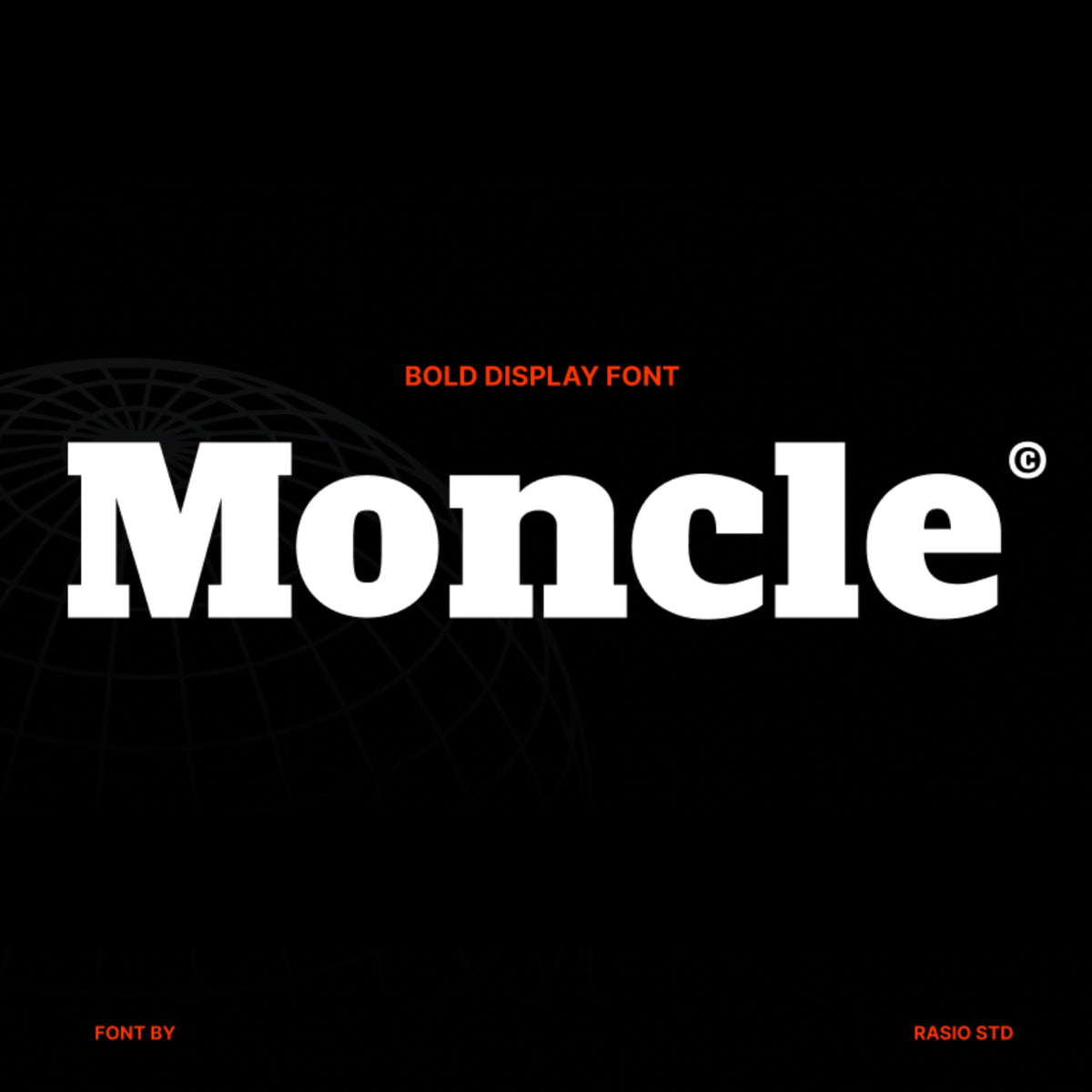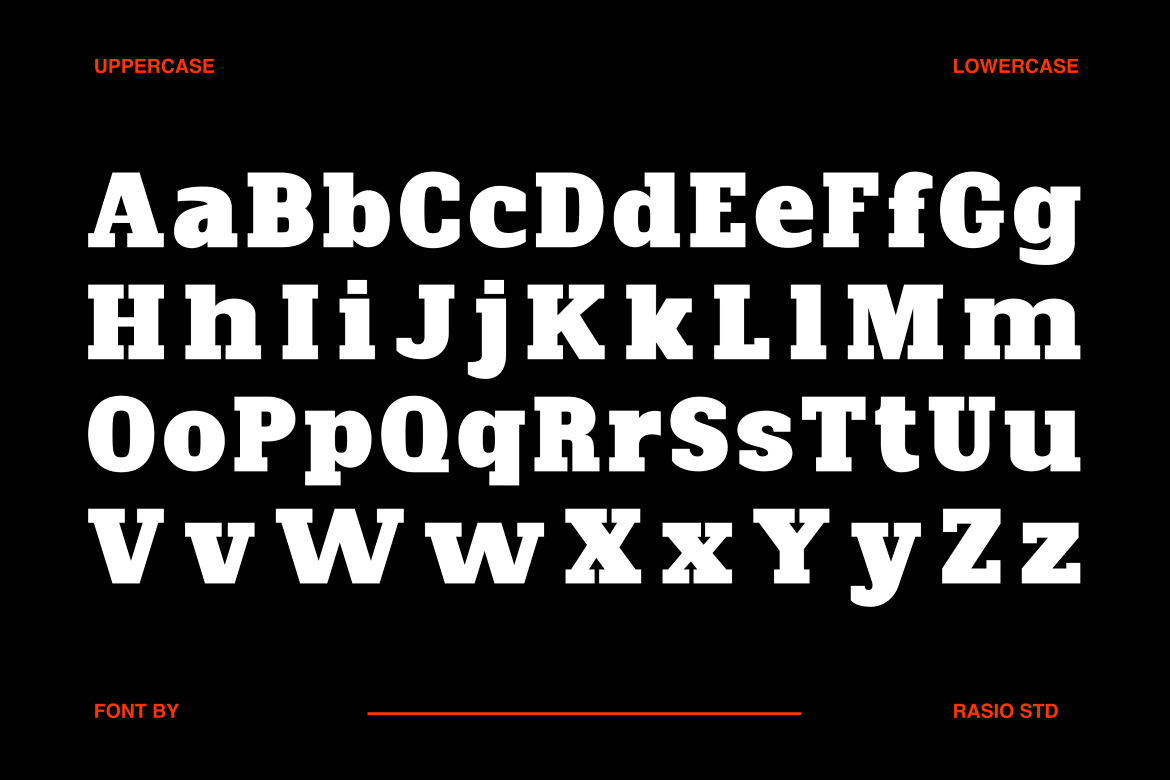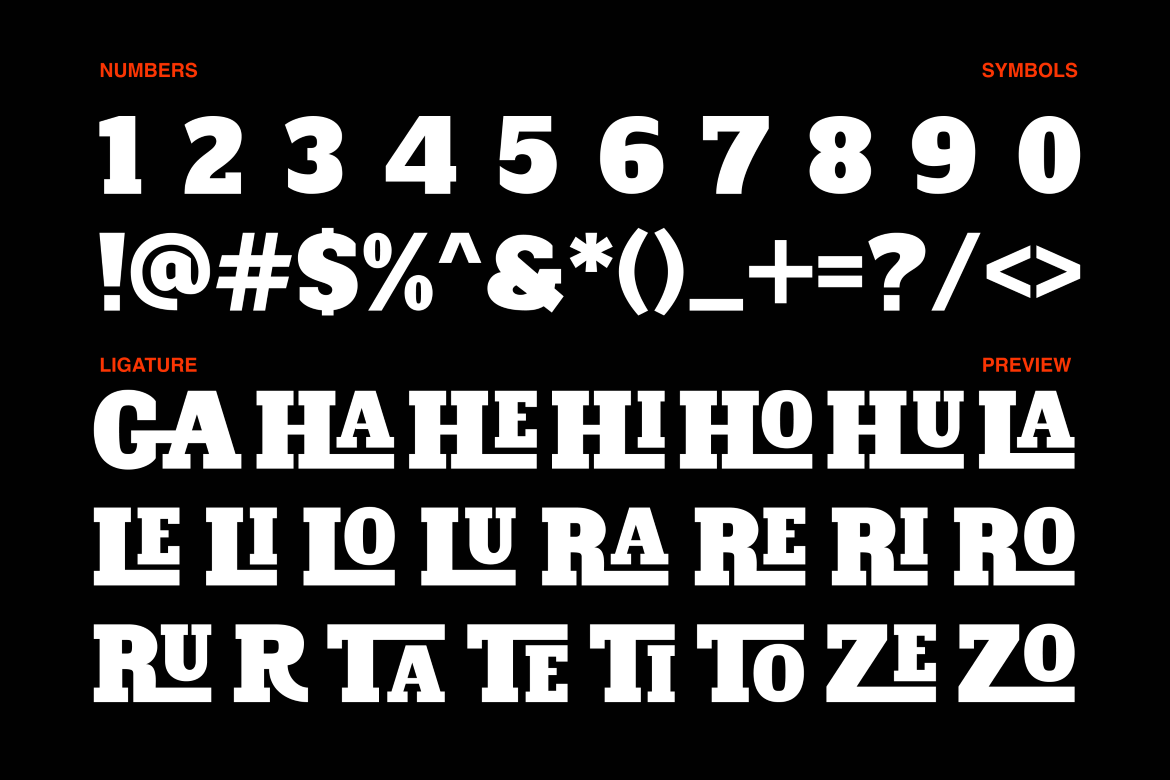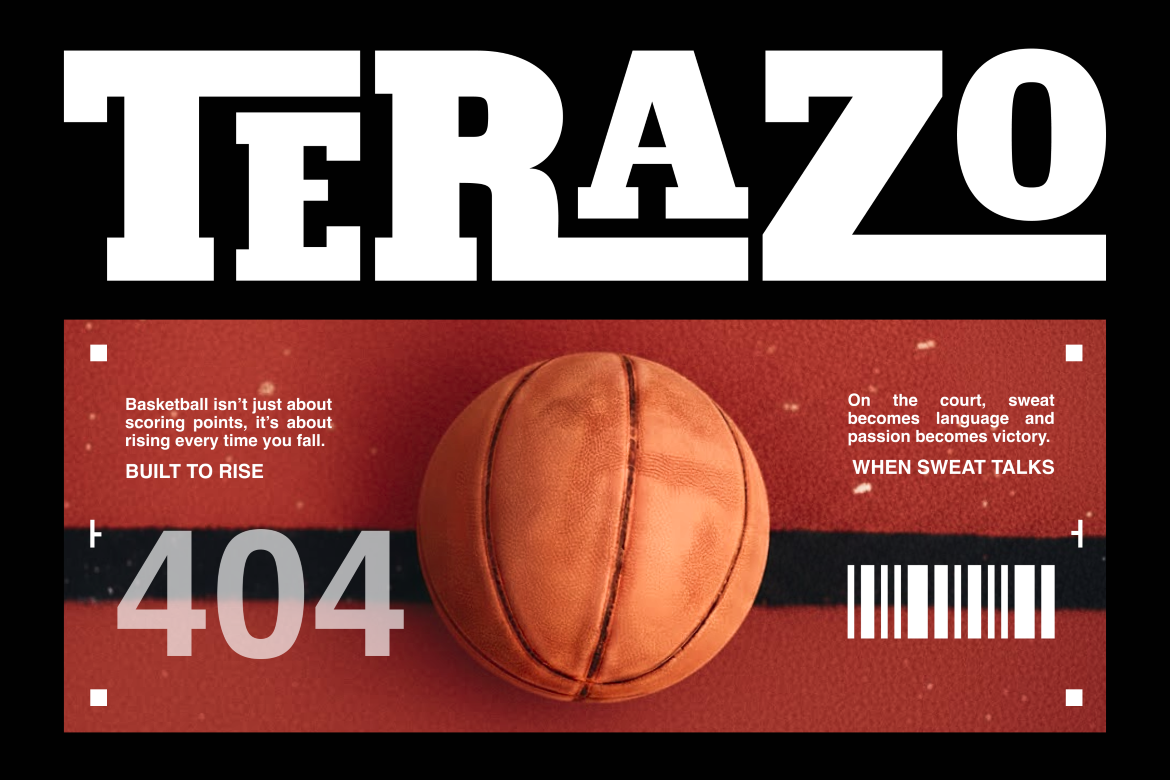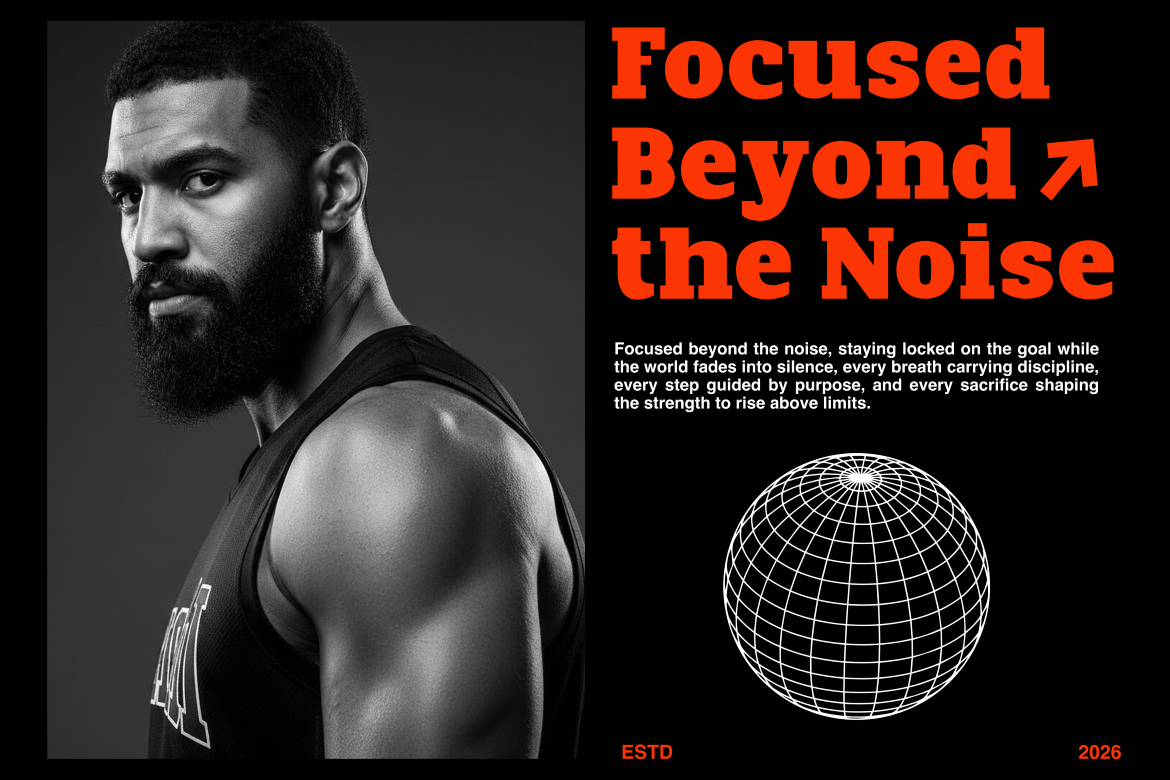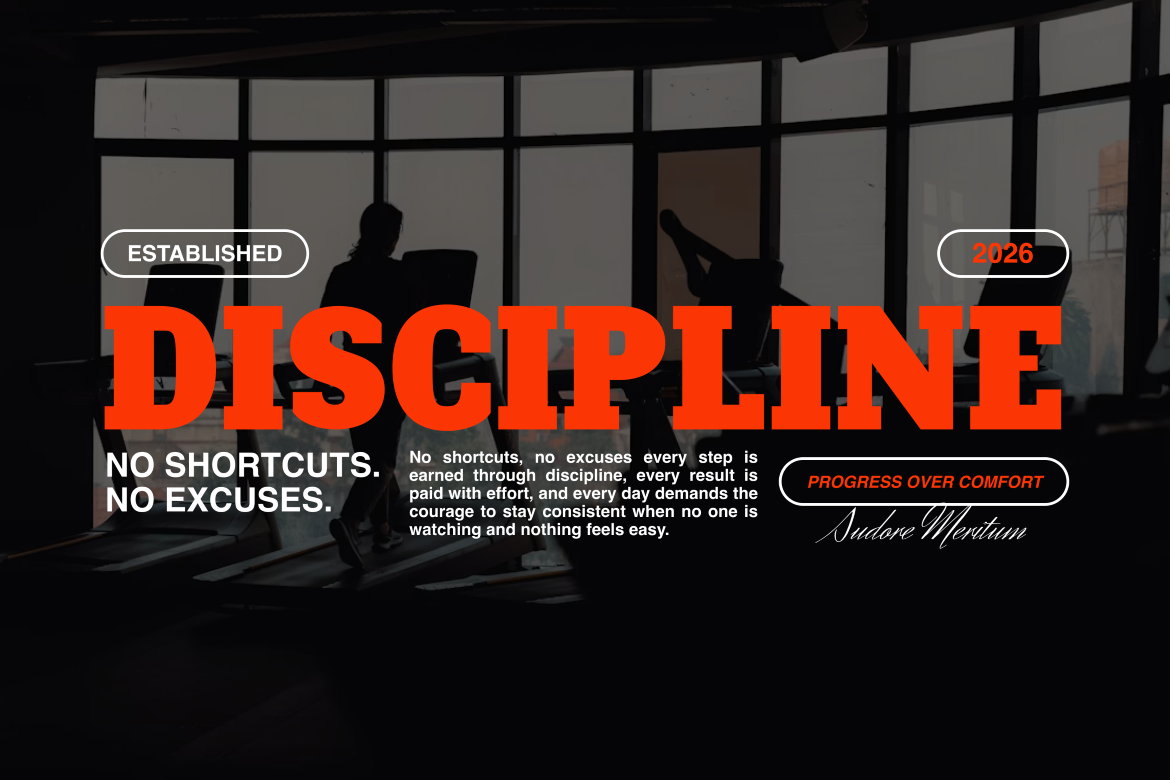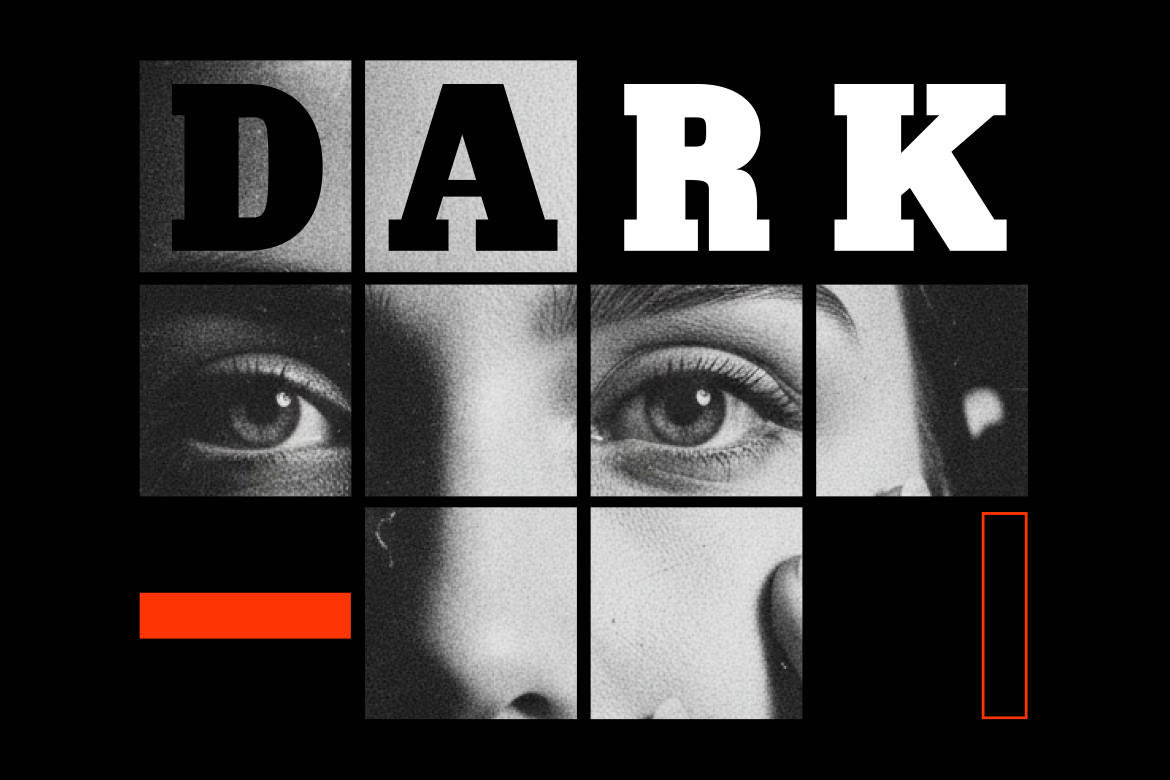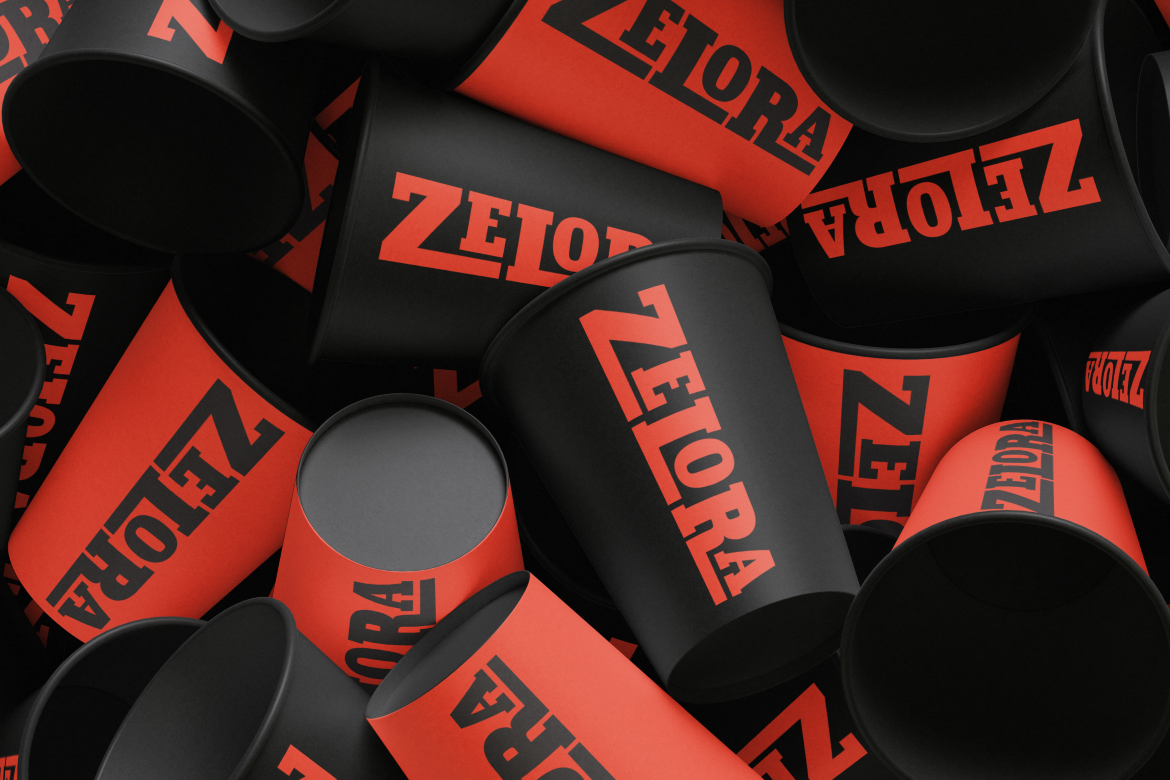
Moncle Bold Display Font
Moncle is a bold display serif font with a commanding presence, designed to capture attention in headlines, posters, editorials, and branding projects. With thick slab-like serifs and a strong vertical structure, Moncle offers both vintage strength and modern clarity. It features uppercase and lowercase characters with full punctuation, making it versatile for both digital and print environments. This typeface is ideal for bold messaging that demands visual weight without compromising style.
Relevance and Use Cases is perfect for fits perfectly in design scenarios that require a bold, professional voice with a hint of retro flair. It's highly effective for magazine layouts, fashion lookbooks, branding projects, signage, packaging, and impactful digital content. Whether used in large-format prints or modern editorial websites, Moncle brings power and elegance to every headline.
Ligatures Supports
Moncle Bold Display Font is a slab-serif typeface with uppercase and lowercase characters, numerals, punctuation, and ligature support. It is available in OTF, TTF, and WOFF formats.